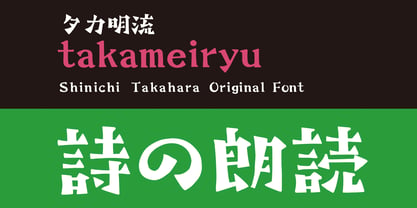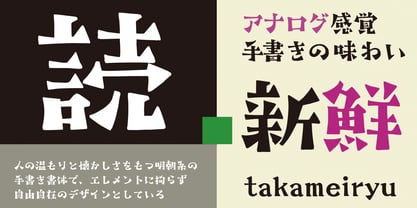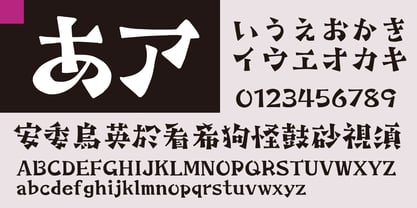
Takameiryu
by Taka Design Production
This is a handwritten Mincho typeface with some warmth and nostalgia. It is not bound by the basic elements of the original Mincho typeface, but has the freedom to use any elements it wishes, without daring to unify them.